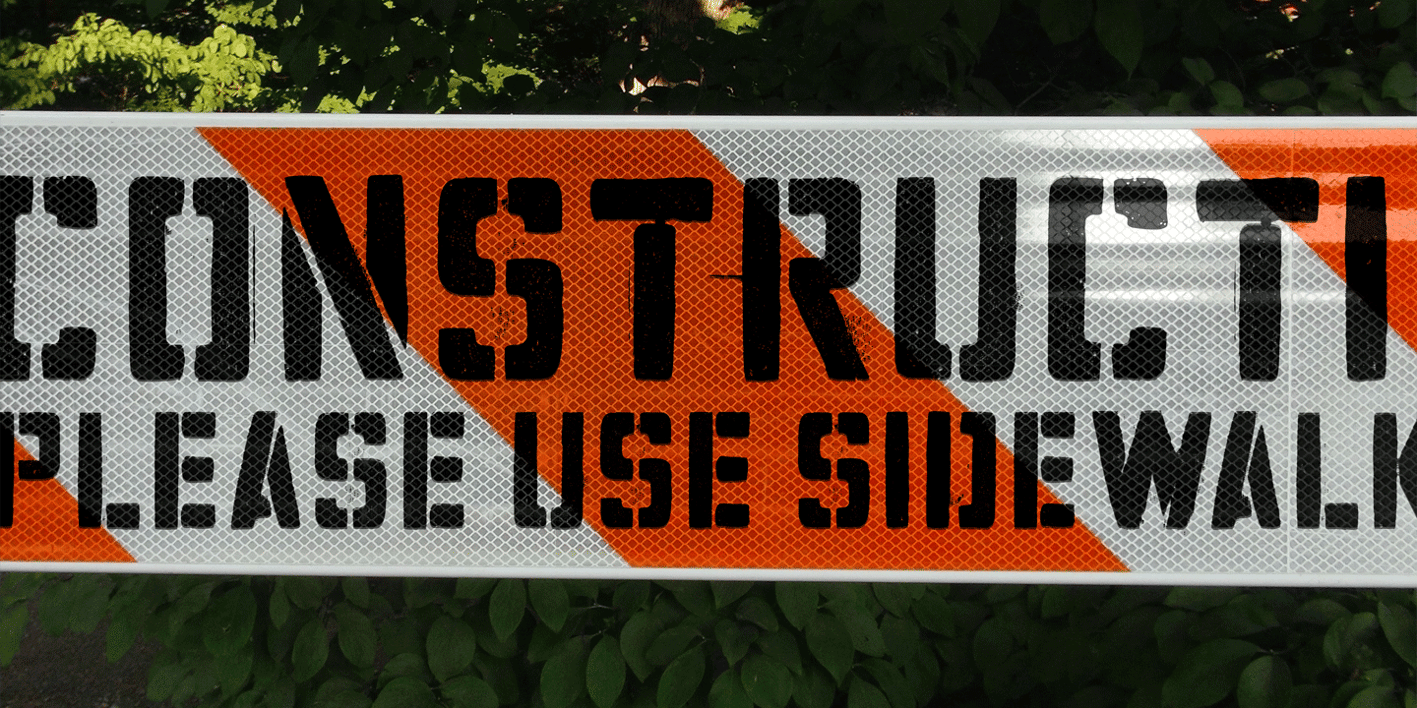
Hogwild Font is perfect for barbecue restaurant branding, wild party invitations, motorcycle rally promotions, country music festival materials, rowdy sports bar signage, outdoor adventure campaigns, rebellious brand identities, untamed event announcements, wild west themed designs, and unapologetically wild marketing communications.
Hogwild Font is exciting because it unleashes the unbridled energy and rebellious spirit of wild abandon with its aggressively untamed letterforms that seem to break free from conventional constraints and embody the raw intensity of living life without limits or apologies. Its wildly exuberant character design reflects both the primal freedom that calls people to break social boundaries and the infectious enthusiasm that makes certain experiences absolutely unforgettable, making it perfect for brands celebrating unrestrained fun and rebellious authenticity.
Hogwild Font family includes light, regular, medium, bold, and black weights, each with corresponding italic versions. The font family also features wild ornaments, rebellious ligatures, untamed symbols, and rowdy decorative elements that enhance its unrestrained aesthetic and party-focused versatility.
This wildly energetic typeface represents the perfect fusion of rebellious freedom and unapologetic fun. Hogwild Font Free Download allows designers to unleash its wild potential before making a commercial commitment. The font's ability to convey both untamed energy and authentic rebellion makes it ideal for entertainment venues, adventure brands, and event organizers targeting audiences seeking genuine wild experiences and unrestrained celebration.
Whether you're developing party venue identities, creating wild event materials, or designing rebellious entertainment communications, Hogwild Font brings an unmistakable sense of untamed energy and wild authenticity to every project. Its rowdy character and wild heritage create powerful connections that resonate with audiences seeking unrestrained fun and authentic rebellious experiences.
The font's versatility excels in entertainment and adventure environments where wild energy and unrestrained fun are paramount. Its untamed character makes it particularly effective for barbecue joints, biker bars, music festivals, and adventure tourism brands seeking to establish wild relationships with audiences passionate about unrestrained celebration and rebellious authenticity.
For designers working on projects requiring genuine wild energy and rebellious appeal, Hogwild Font offers an exceptional solution. Its unapologetically wild presence and comprehensive party-themed elements provide the tools needed for creating truly untamed communications, while its rebellious authenticity ensures your designs capture the unbridled freedom and wild spirit that defines the most memorable party experiences and unrestrained adventure celebrations.